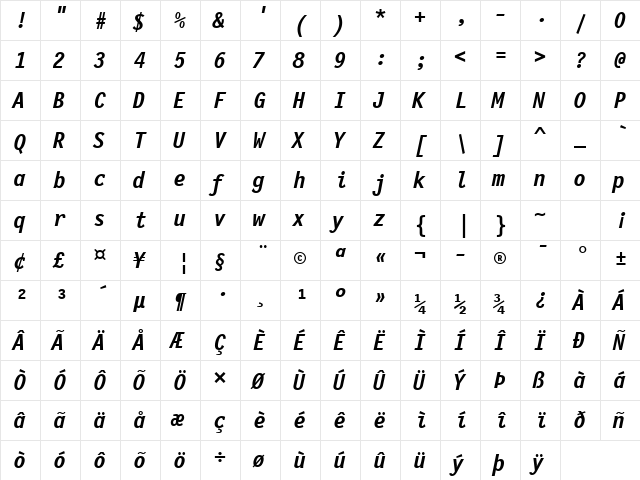
LettrGoth12 BT Bold Italic Font Preview
Design Context for LettrGoth12 BT Typeface
LettrGoth12 BT takes a measured approach to typography — its balanced proportions and neutral character make it a reliable workhorse for both digital and print work. The dynamic lean of this cut emphasises speed and emphasis in any layout. Its bold stroke weight gives it real presence on the page.